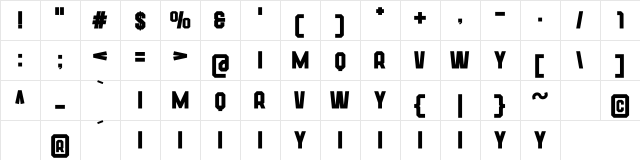
Complete Wynford Solid Regular glyph index. Displaying only characters natively supported by Wynford Solid Regular font.
Wynford Solid is a composed and adaptable typeface that performs quietly and consistently across a wide range of design contexts.